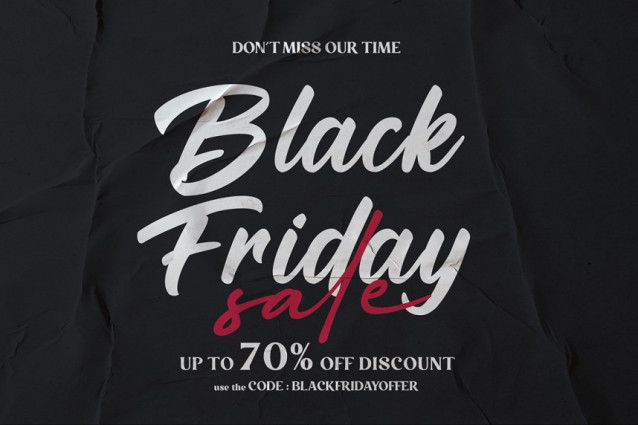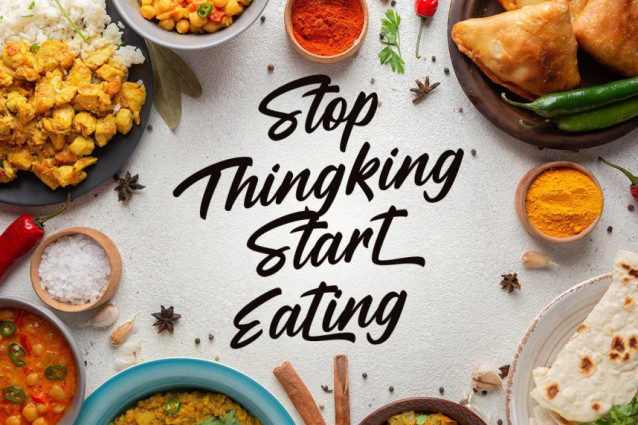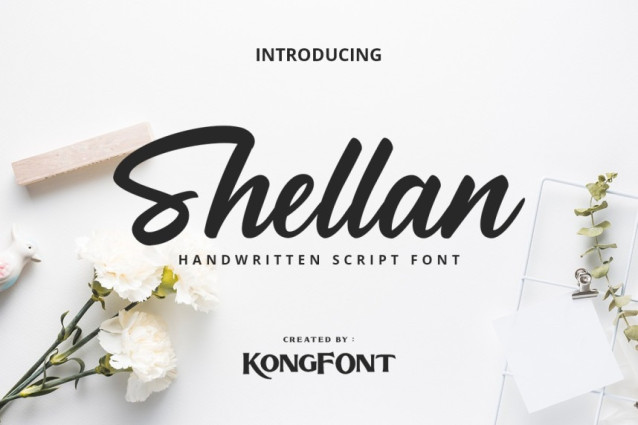
Shellan Script Font
Shellan Script Font – Classy Handwriting Font Script & Signature Font provides a wide selection of font types that have interesting characteristics. This time, Shellan Classy Handwriting Font is here as one of the best choices among other fonts. This font is a monoline script in bold font. Some of the letters are written in series and look beautiful. Shellan Classy Handwriting Font is an eligible font. This font type does not apply to prints that are too large or too small because it will reduce readability. It must be used with the appropriate font size so that it can give the maximum attractive impression. Shellan Classy Handwriting Font can be applied to several things, such as product branding. It can use as brand tags, promotional posters, and shop signage. This font can use digitally when you want to promote products on social media. Apart from products, this font can use to promote a service, such as photography. Shellan Classy Handwriting Font is one of the best fonts for quotes that contain motivation and encouragement. The beautiful shape of the letters will be good when combined with the appropriate ornaments and colors. Our collection of script & signature fonts is compatible with Figma Fonts, Canva Fonts, Freepik Fonts, and Adobe Fonts. They also work as Windows and Apple Fonts. For your social media needs, you can use and install fonts in our Script & Signature font collection to use as Instagram Fonts, Facebook Fonts, and Twitter Fonts.